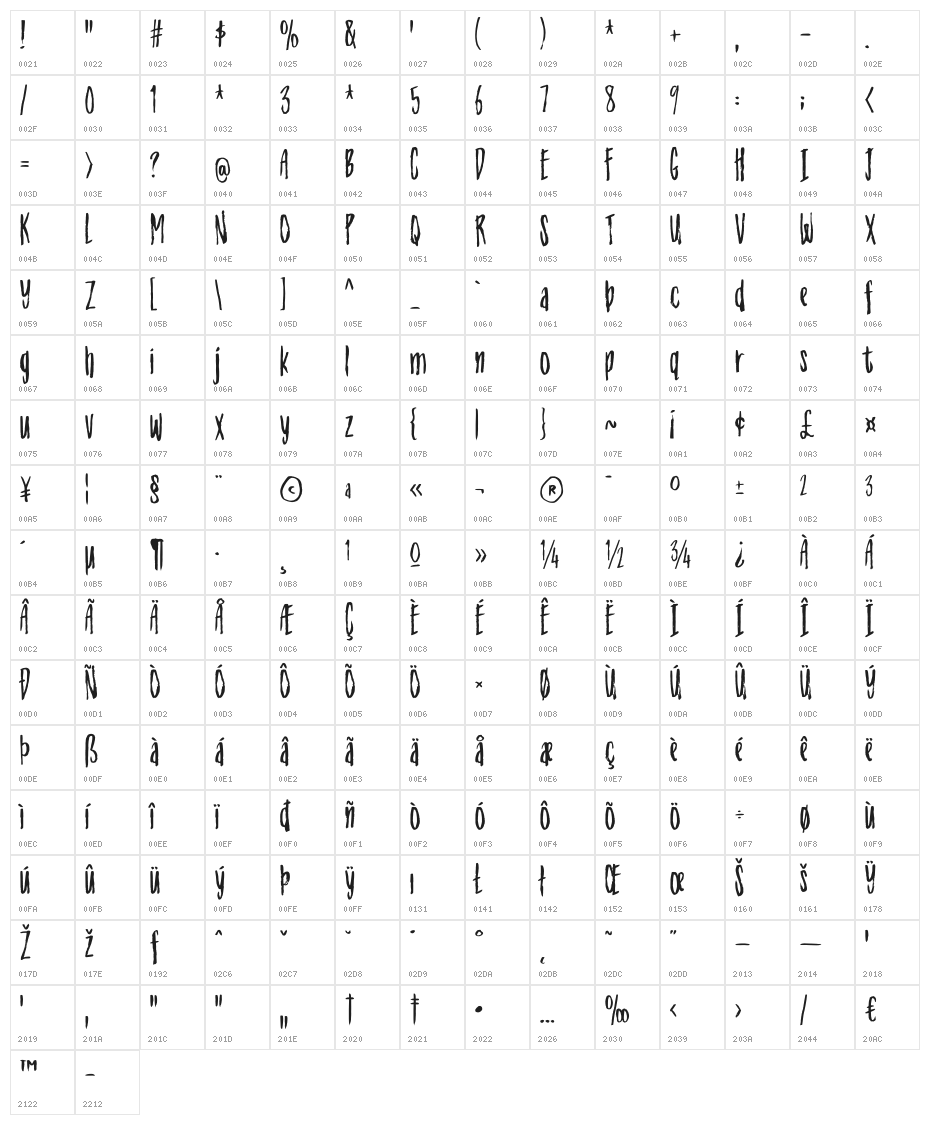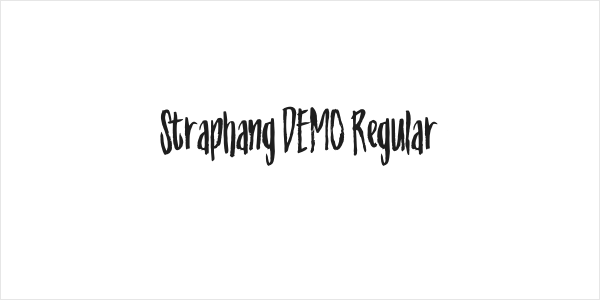
Straphang DEMO Regular Font
Straphang DEMO Regular Description
This font features a bold, expressive style with a hand-painted appearance. The strokes are uneven and textured, giving it a raw, artistic feel. The uppercase and lowercase letters maintain a consistent height, while the numbers and special characters follow the same rugged aesthetic. The overall design is dynamic and energetic, making it suitable for projects that require a strong visual impact. The font's unique character is emphasized by its irregular edges and varying stroke thickness, which add to its handcrafted look.
| Proposed Projects | Ideal for posters, album covers, branding, and any creative project that requires a bold, artistic touch. |